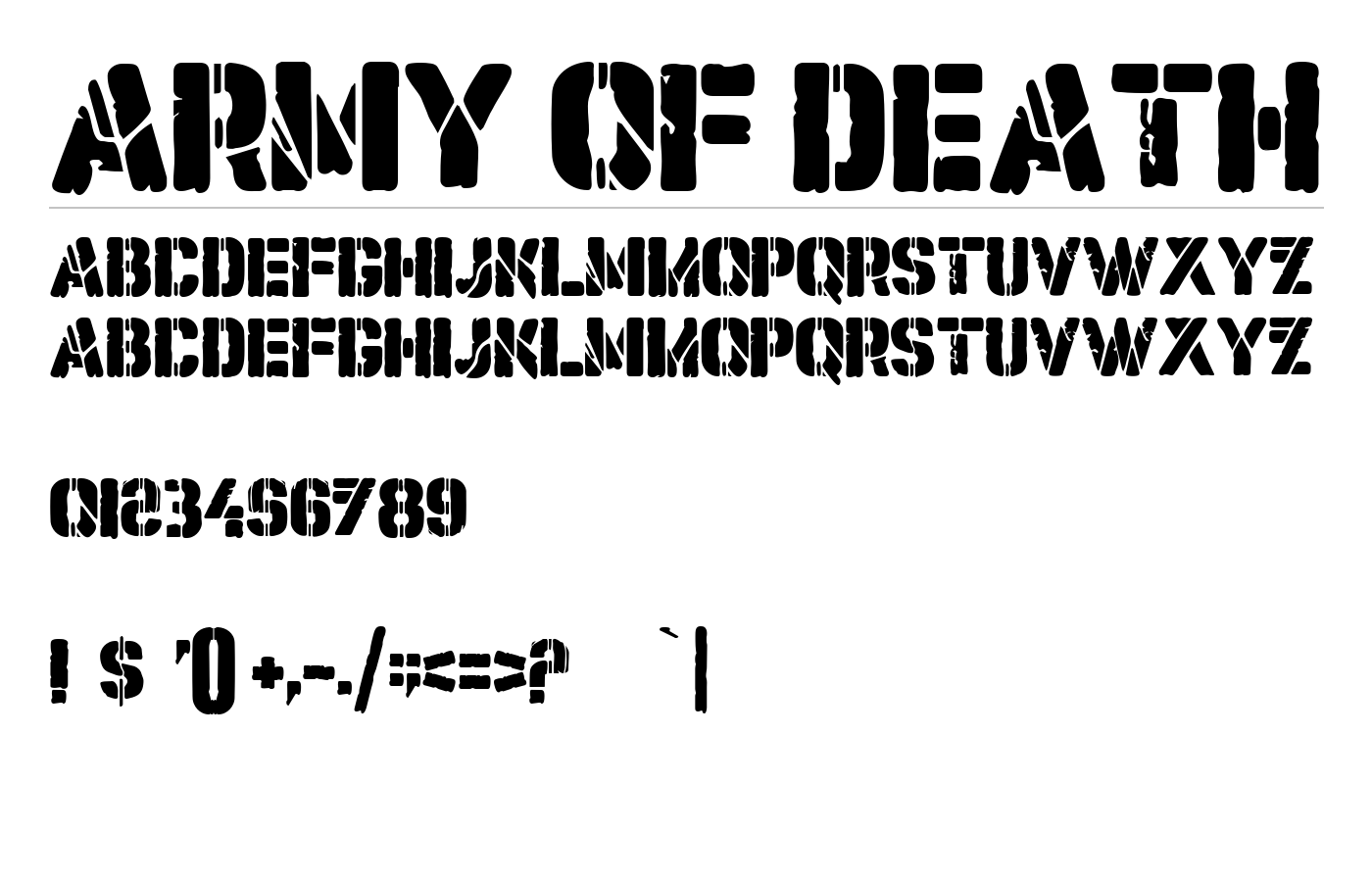
Army of Death is a bold, condensed stencil-style sans serif font with a rugged, worn look created by irregular breaks in the letterforms. Its strong, blocky shapes and high contrast strokes evoke a military or industrial feel, making it perfect for designs that need a gritty, impactful presence. This font works well in headlines, posters, and branding related to action, toughness, or vintage military themes where a tough, commanding voice is desired.
Army of Death Font
About Army of Death Font
| Font family | Army of Death Font |
| Designer | Octotype |